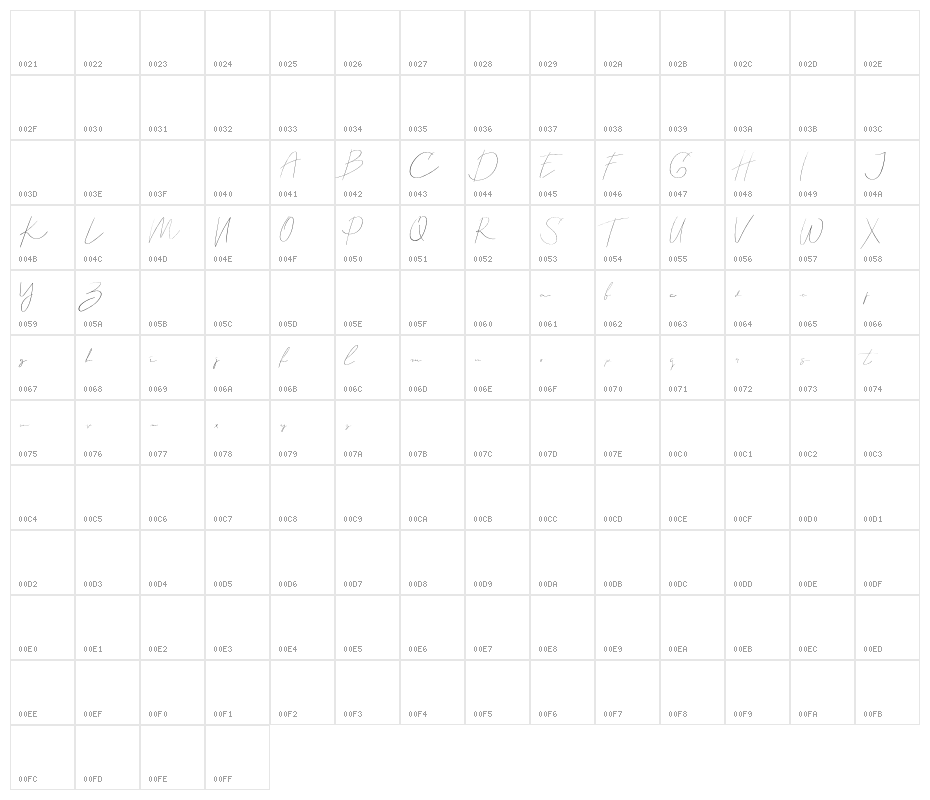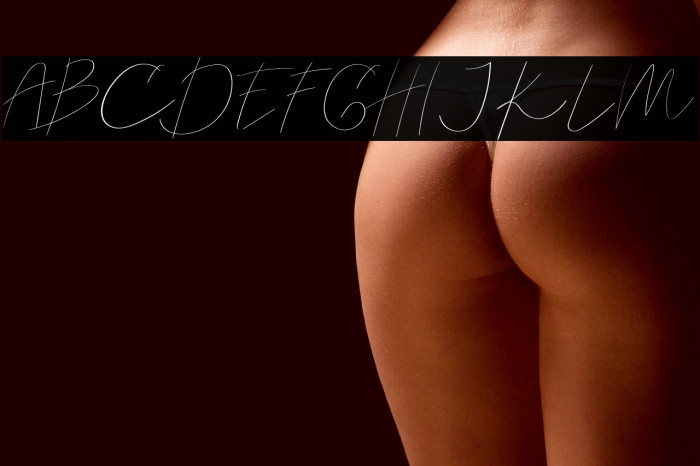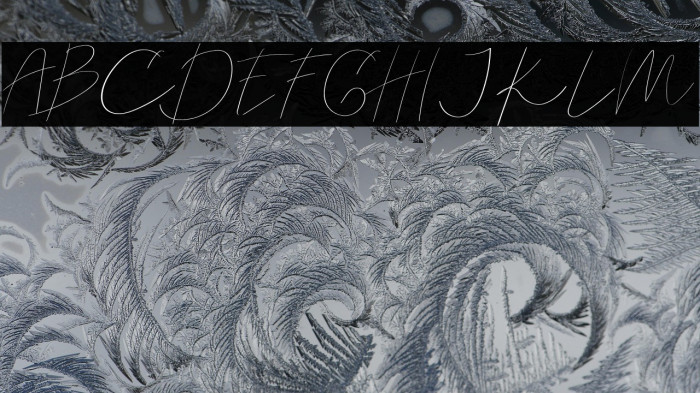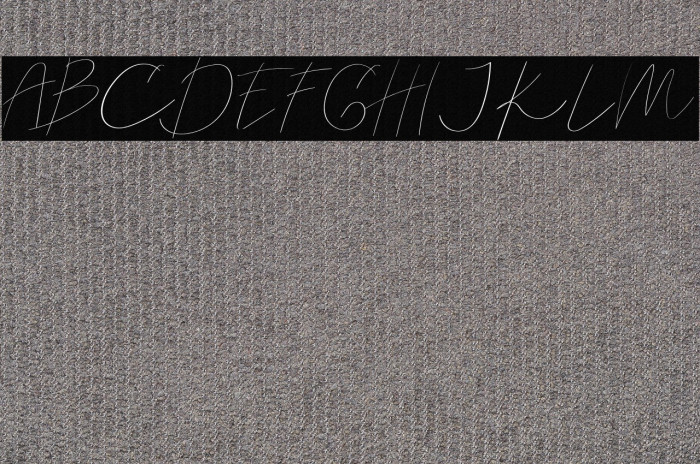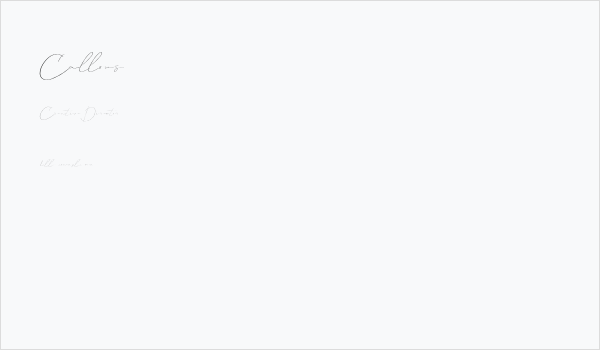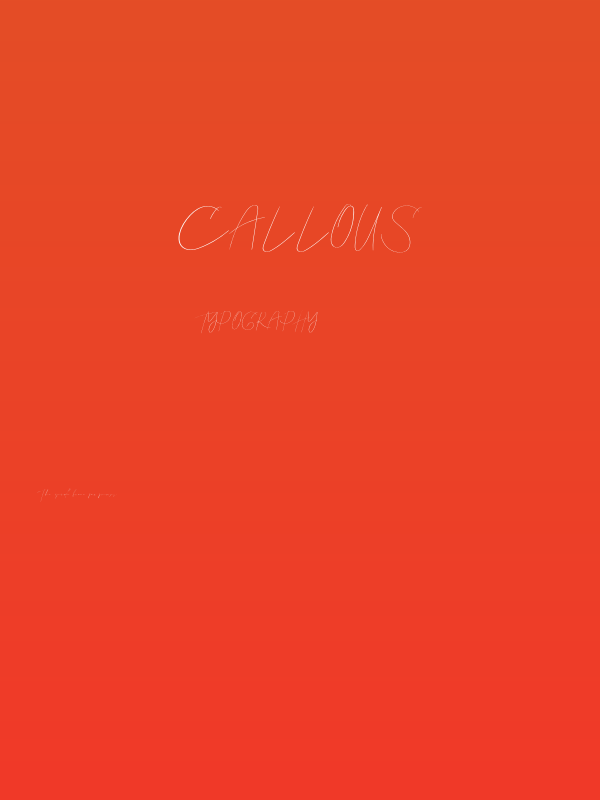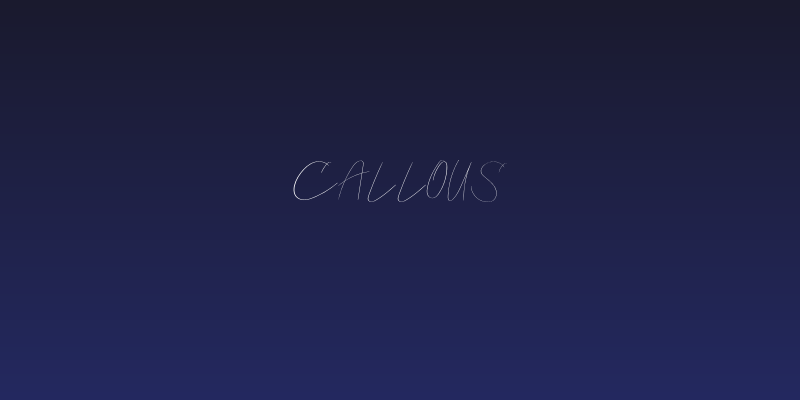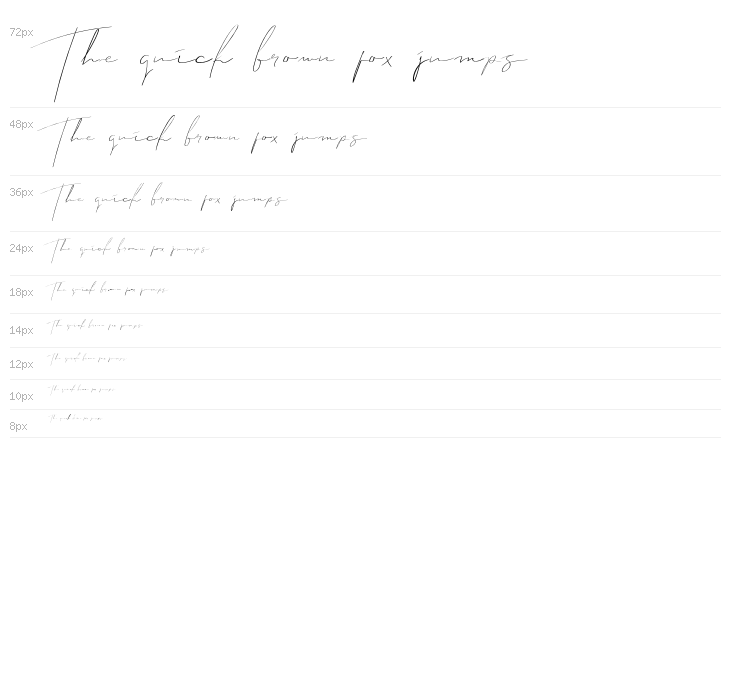
Callous Font
Callous Description
This font exudes a delicate and elegant style, characterized by its thin, flowing strokes that mimic the fluidity of handwriting. The uppercase letters are tall and slender, with a slight slant that adds a touch of sophistication. The lowercase letters maintain a consistent flow, enhancing the script-like appearance. The overall design is airy and light, making it suitable for projects that require a personal and graceful touch. The characters are well-spaced, ensuring readability while maintaining an artistic flair. This font is ideal for creative projects where a handwritten aesthetic is desired.
| Overall Style | Elegant, Handwritten |
| Use Case | Logos, Invitations, Personal Branding |
| Proposed Projects | Ideal for wedding invitations, personal branding, greeting cards, and elegant stationery. |